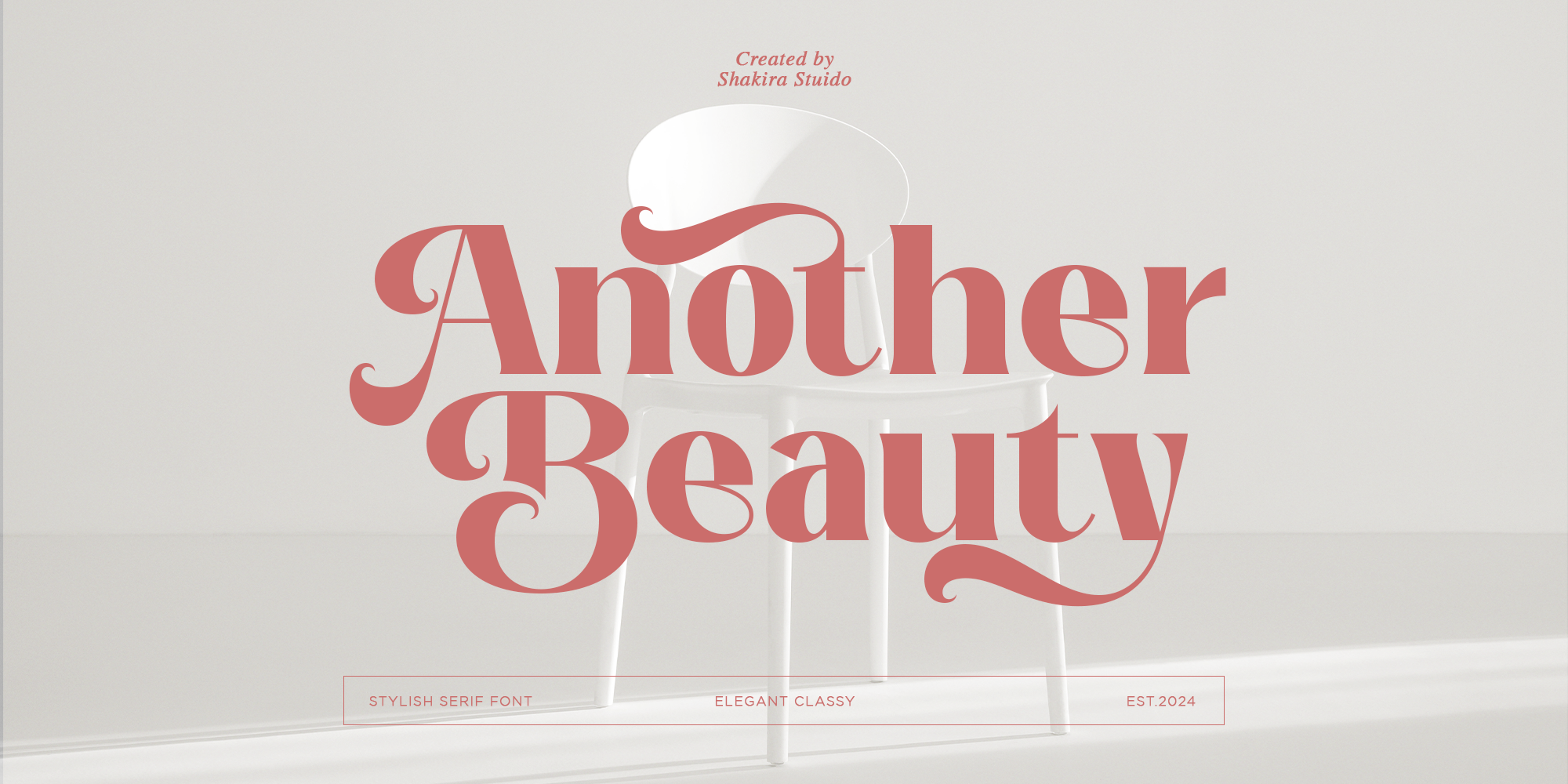
Another Beauty Font is ideal for beauty salon branding, cosmetics packaging, fashion magazine headlines, wedding invitations, feminine lifestyle blogs, luxury skincare labels, elegant social media posts, and high-end boutique signage. This graceful typeface brings sophistication and feminine charm to any design project targeting beauty-conscious audiences and luxury lifestyle brands.
What makes Another Beauty Font exciting is its perfect balance of elegance and contemporary style that captures the essence of modern femininity and timeless beauty. The flowing letterforms feature delicate curves and refined details that create an effortlessly sophisticated appearance. Each character embodies grace and poise, making it the perfect choice for brands that celebrate beauty, elegance, and the art of self-expression.
The Another Beauty Font family typically includes regular and bold weights with complete uppercase and lowercase letters, numbers, punctuation marks, and special characters. Many versions feature stylistic alternates, ligatures, and decorative swashes that enhance the font's elegant personality and provide additional creative flexibility for designers.
Whether you're creating premium beauty brand identities or designing sophisticated marketing materials, Another Beauty Font Free Download delivers unmatched elegance and versatility. This stunning typography choice transforms simple text into captivating visual statements that resonate with discerning audiences who appreciate refined aesthetics. The font's exceptional readability ensures perfect performance across both digital and print applications while maintaining its distinctive beauty-focused character that elevates every design project to new levels of sophistication and charm.